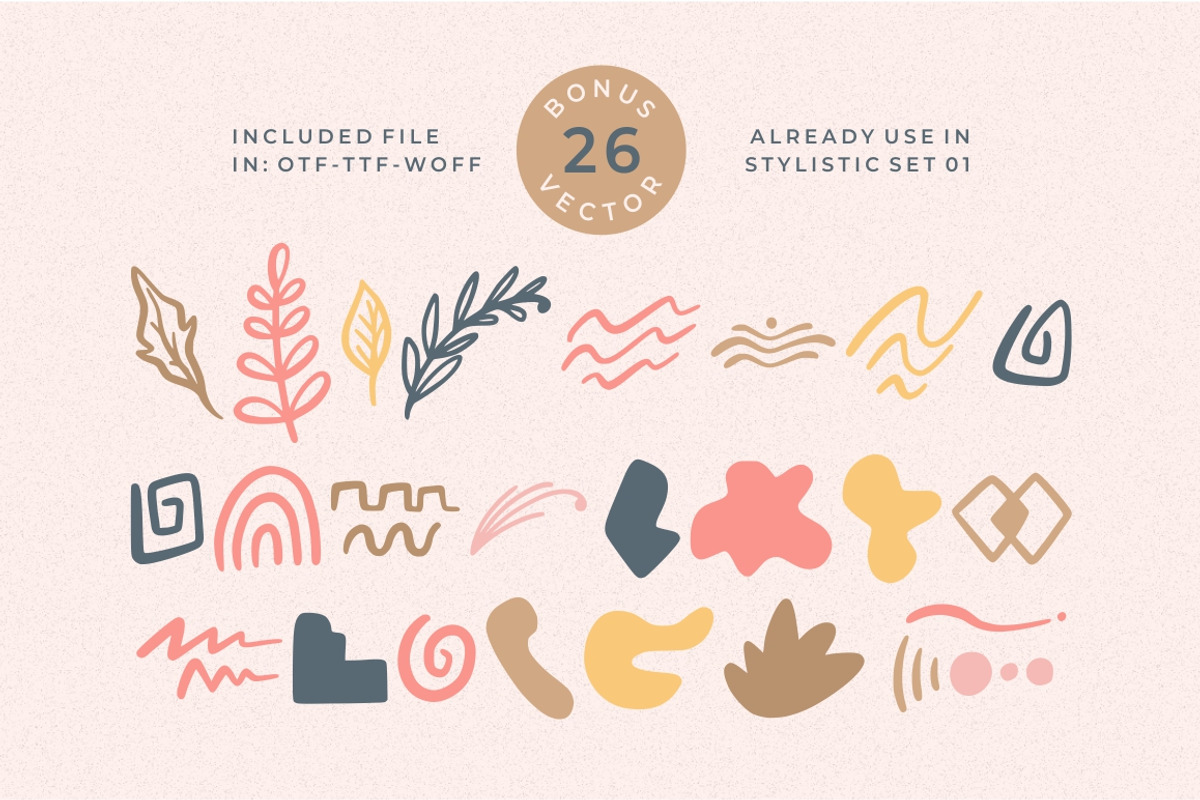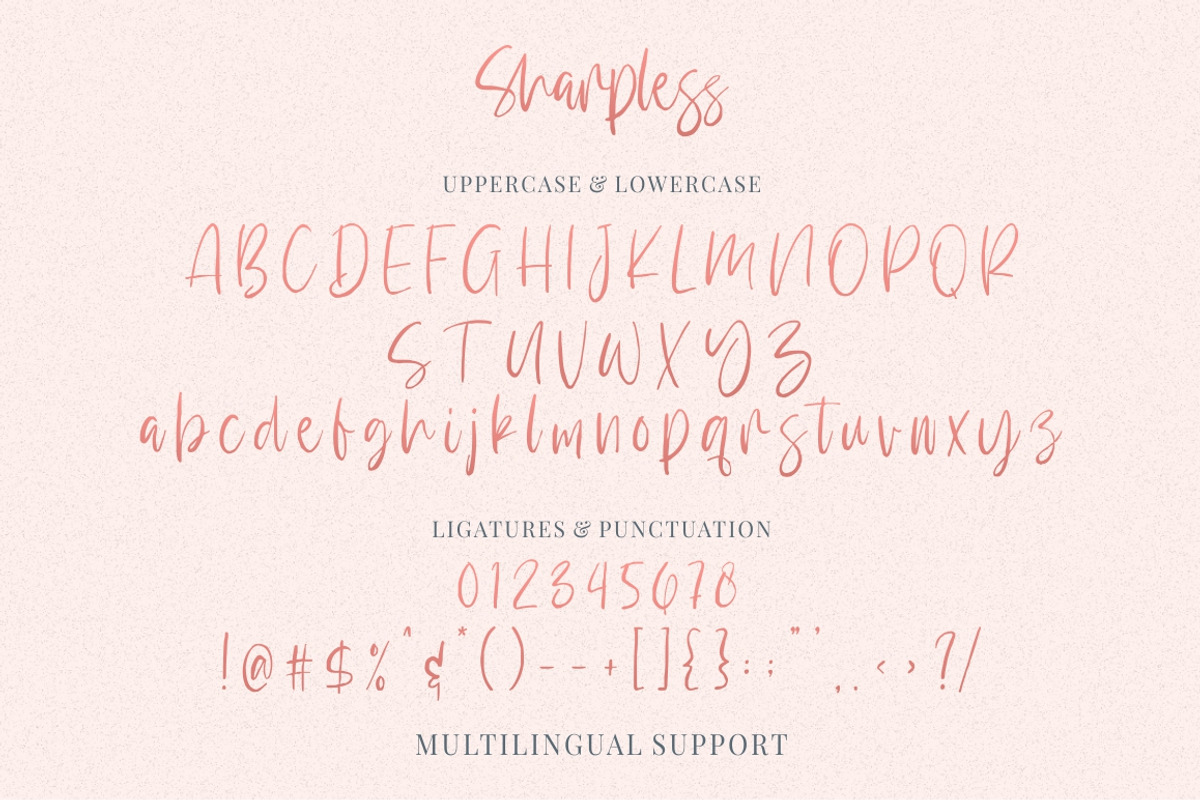
Sharpless - Handwritten With Doodle
Sharpless - Handwritten Script font is a natural & modern handwritten font. I'ts Perfect for logo, invitation, stationery, wedding designs, social media posts, advertisements, product packaging, product designs, label, photography, watermark, special events or anything. This font include : Sharpless OTF-TTF-WOFF, Ligatures, and also Multilingual support.
What's Advantages Sharpless ?
- Very great for branding, logotype, handletteing, invitations, or fashion branding.